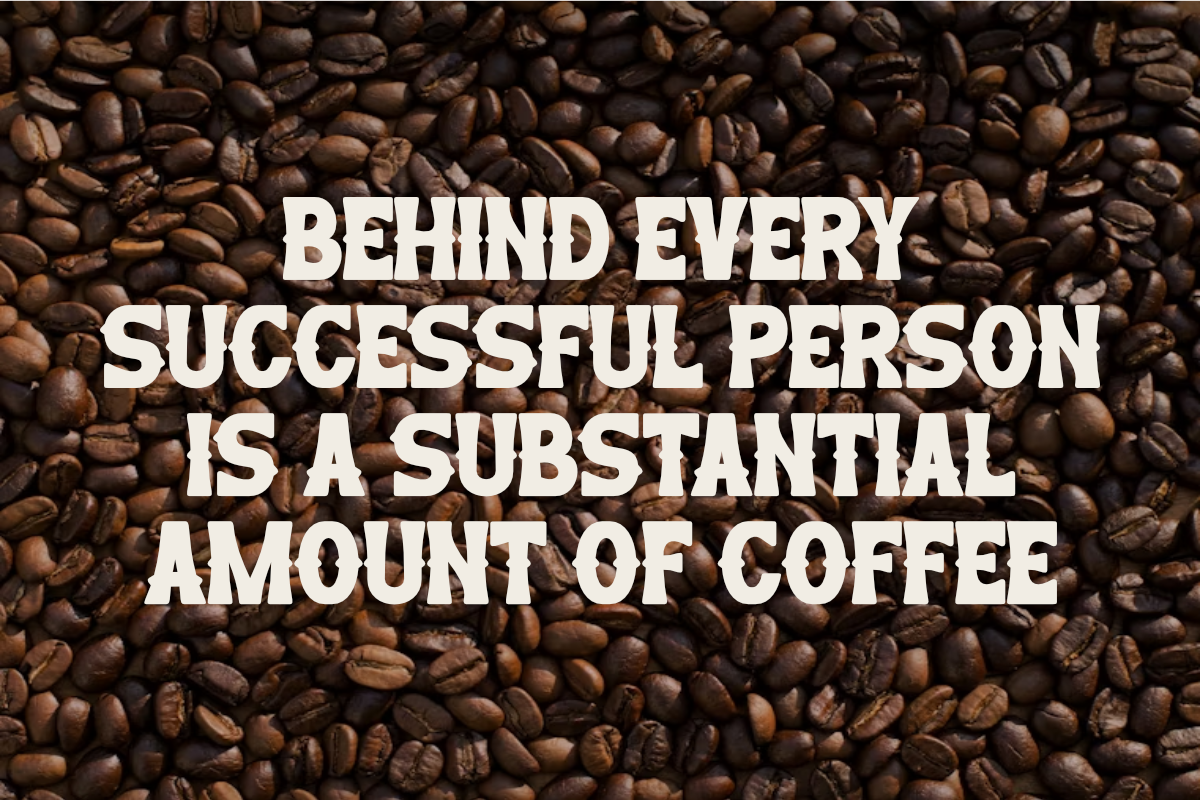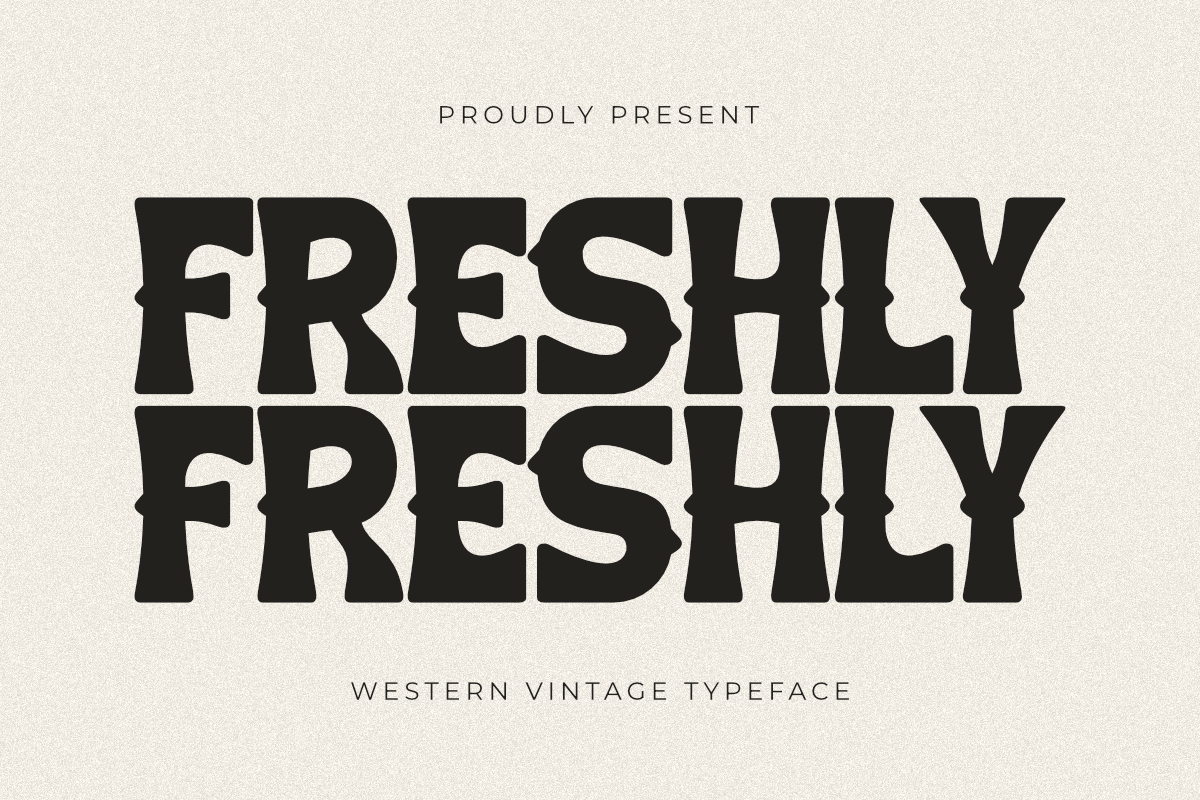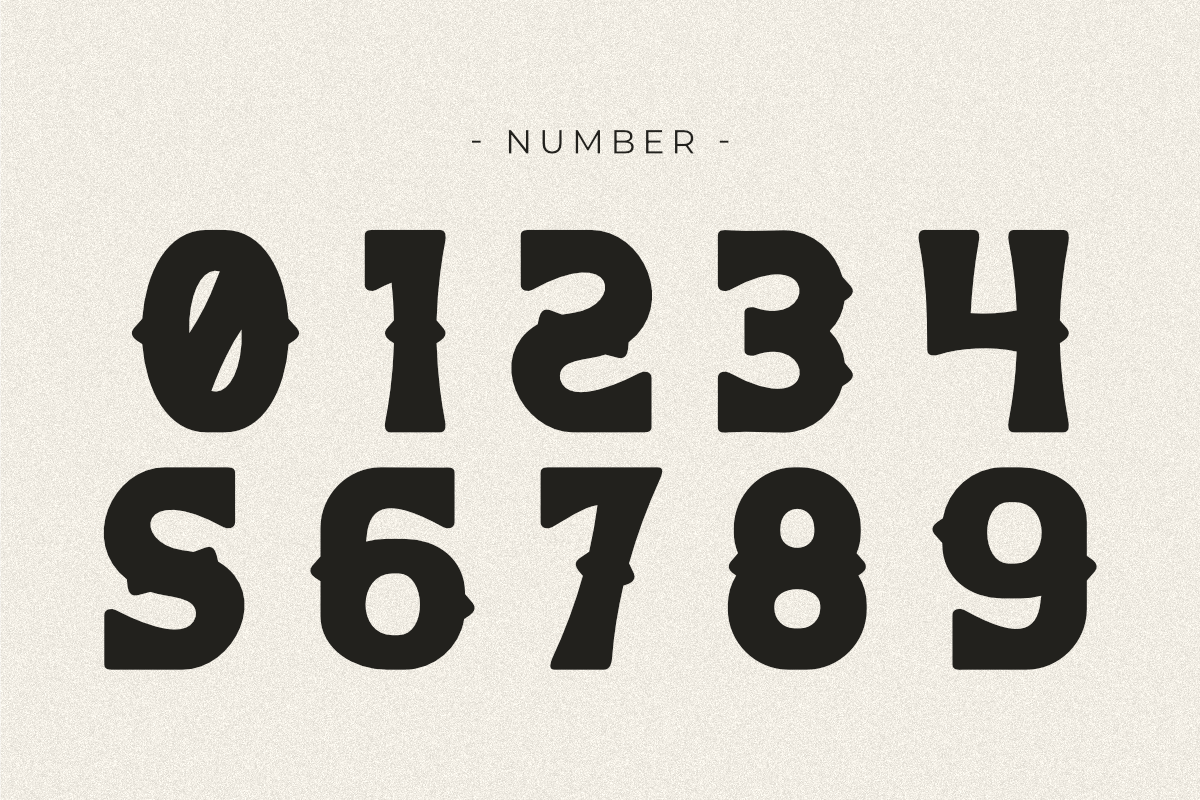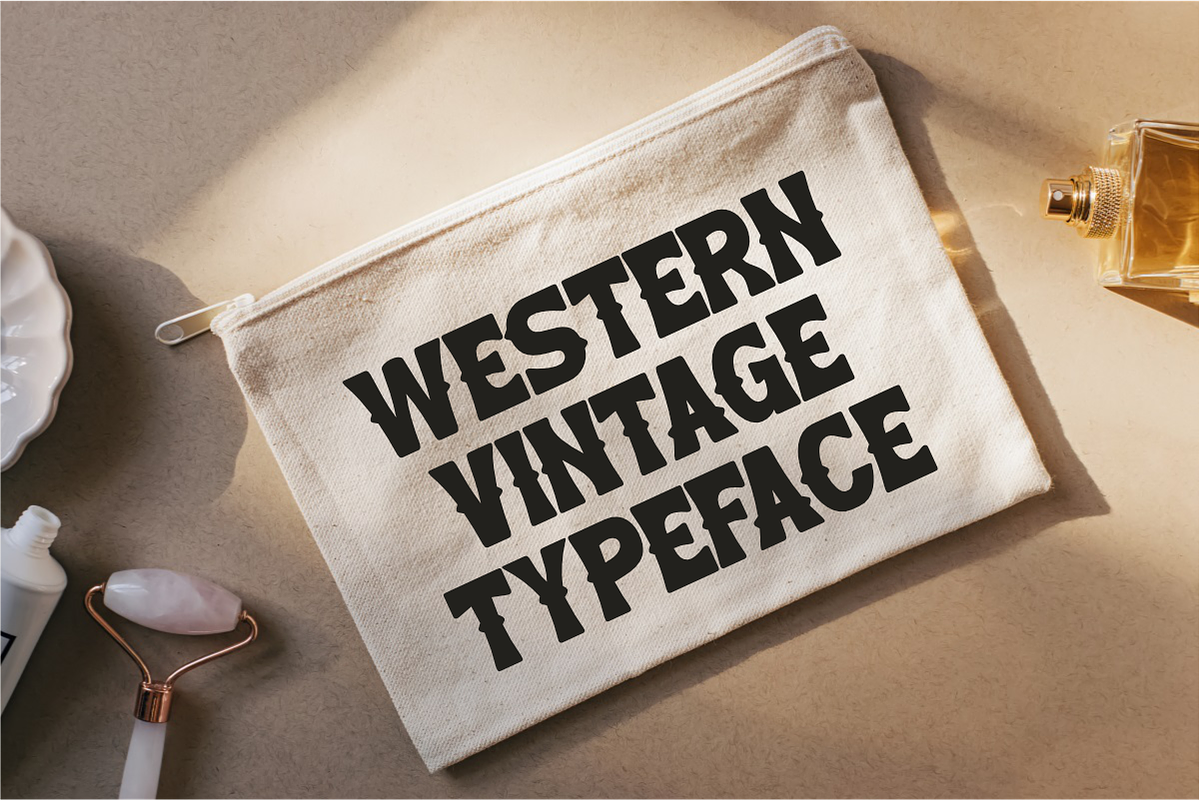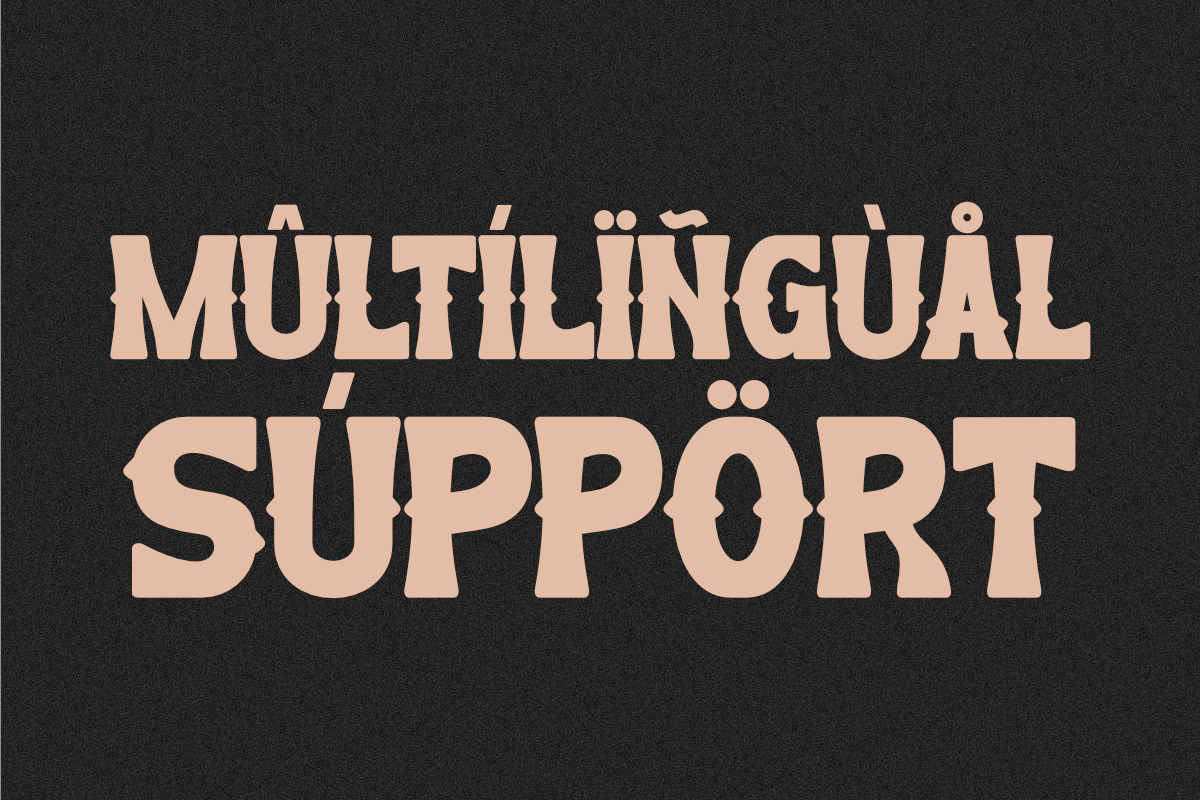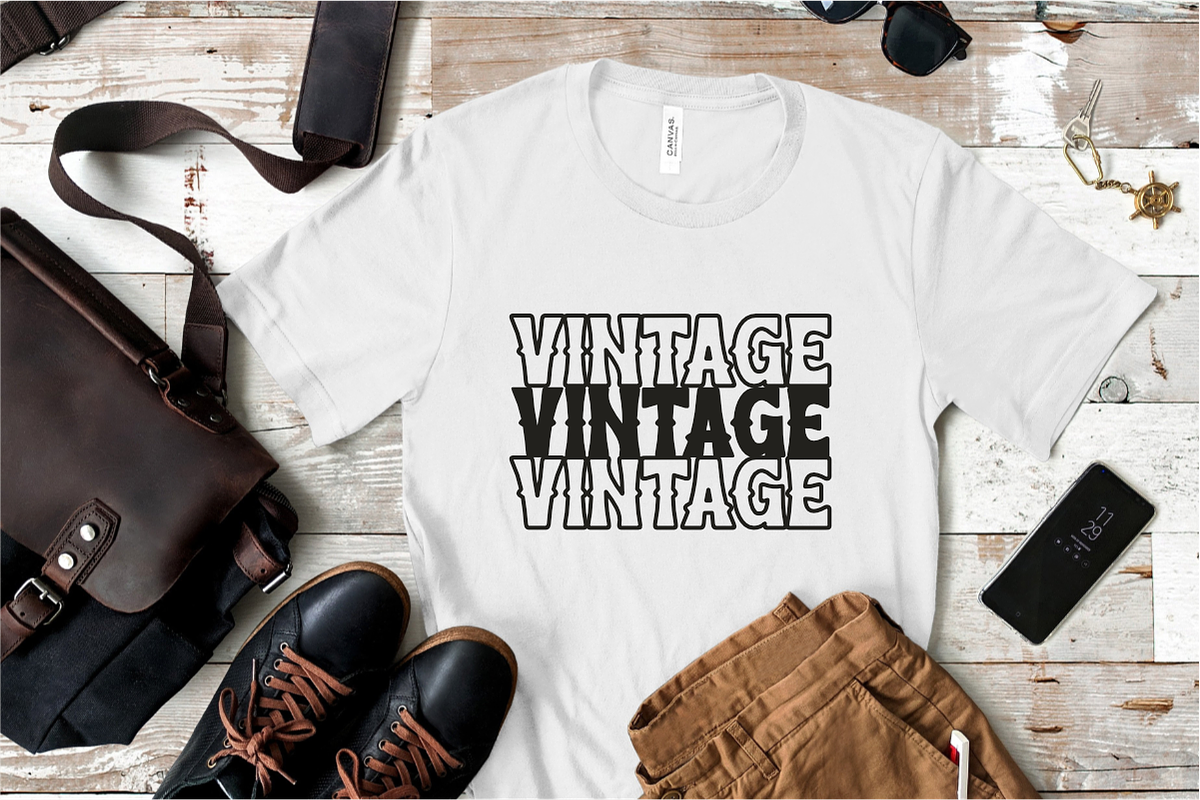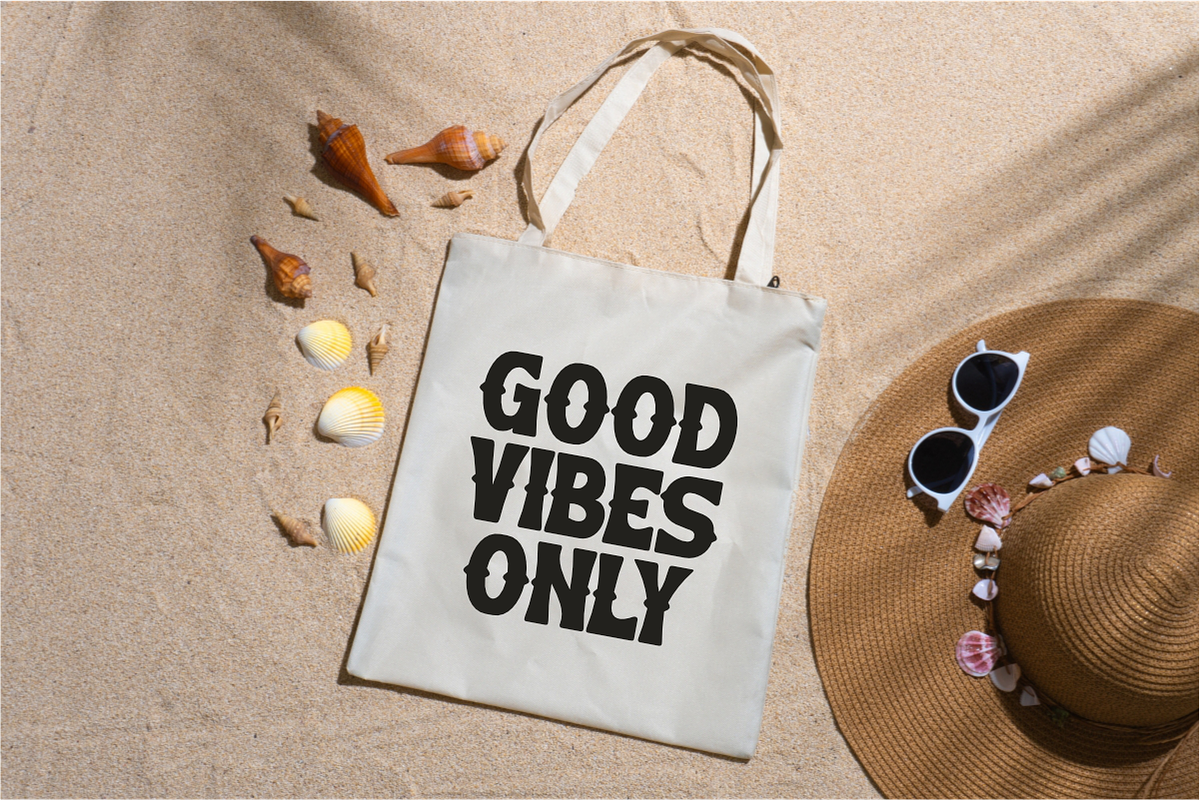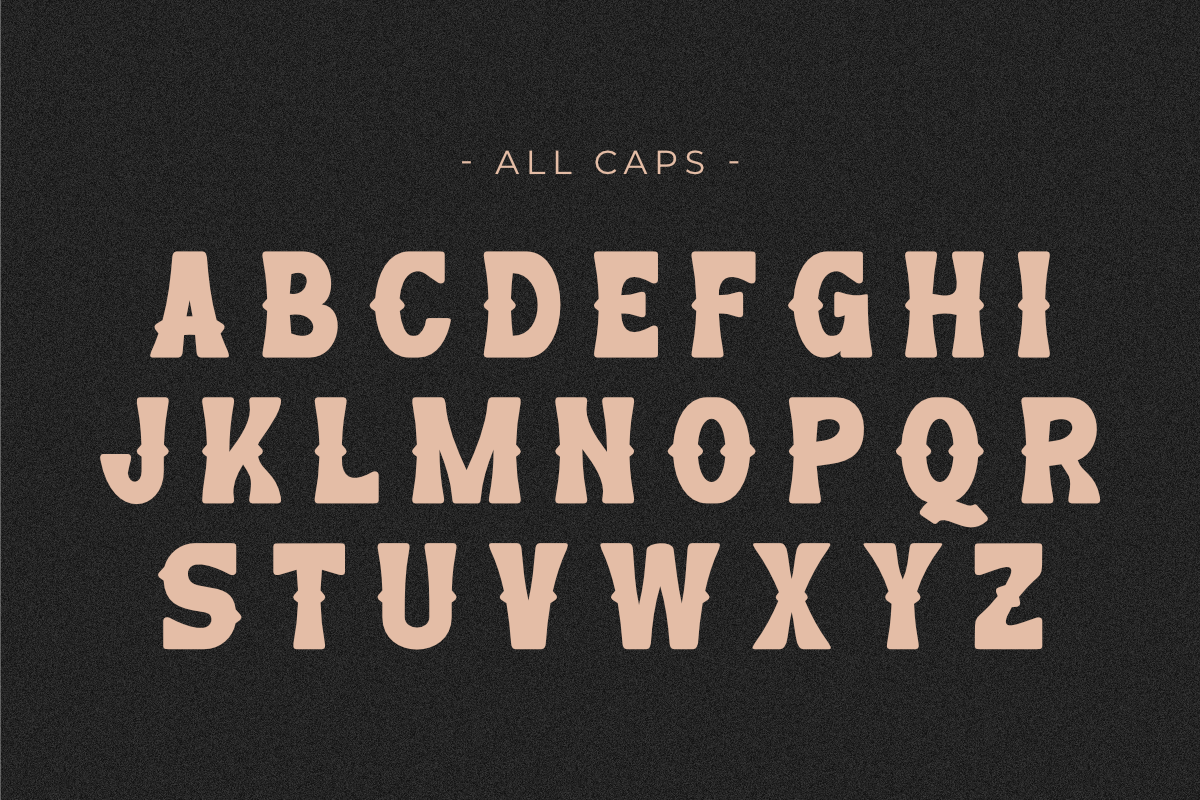
Freshly - Western Vintage Typeface
Freshly is a western vintage typeface with a bold display style, perfect for T-shirt designs, POD, DIY, and laser cuts. Featuring a chunky, rounded design and a fun, playful feel, this font adds a retro and unique touch to your creative projects. Ideal for crafting, branding, and more, especially for western-themed and vintage-style designs.